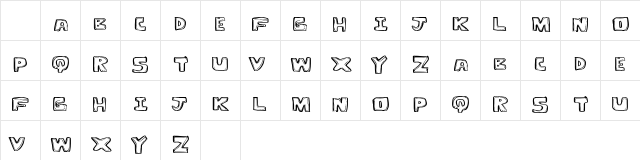
OutlineTwelve is built around its visual character rather than neutral utility - its distinctive forms are designed to make an impression at display sizes.
Font Pairing: Pair with a clean neutral sans-serif for body copy to let OutlineTwelve's character lead without overwhelming the composition.
Pro Tip: Use OutlineTwelve exclusively at display sizes - it was designed to be seen, not read at length. Let a neutral companion handle body copy.